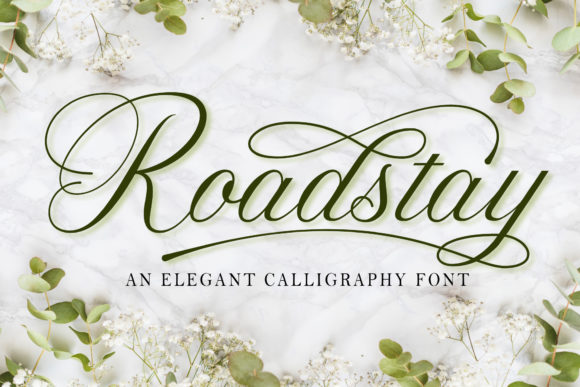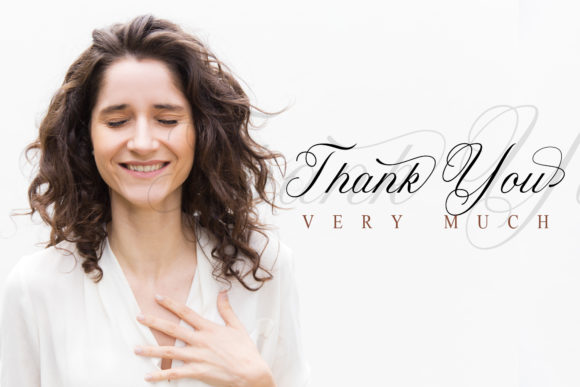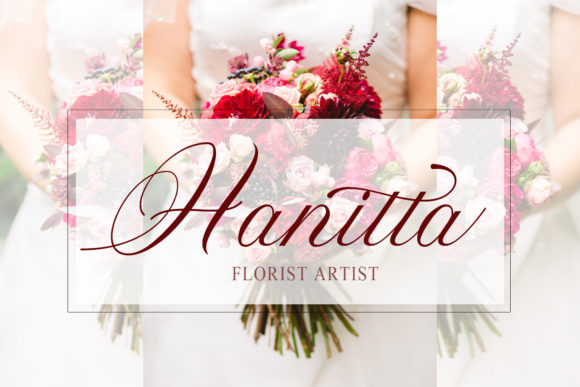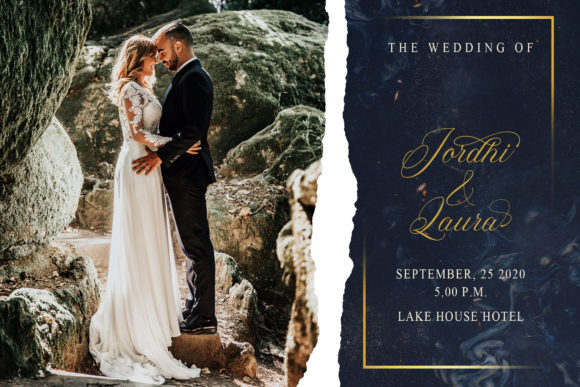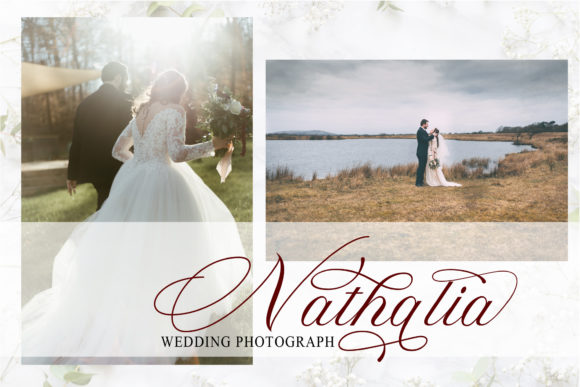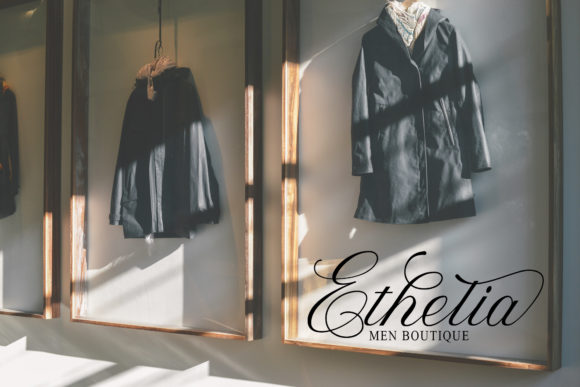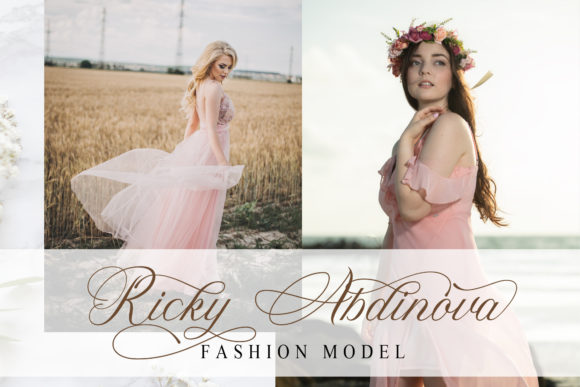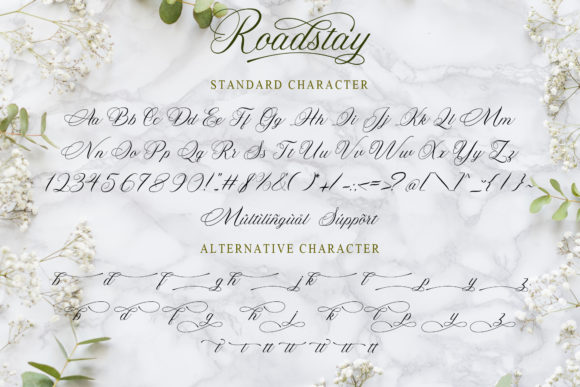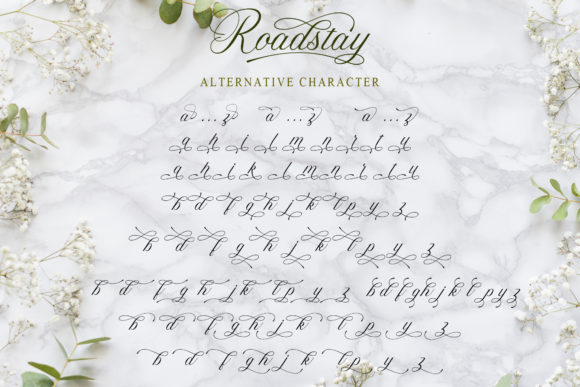
Roadstay Font
About Roadstay Font
Roadstay is an elegant calligraphy font. This font includes a wide range of alternate characters that make this gorgeous script incredibly versatile.